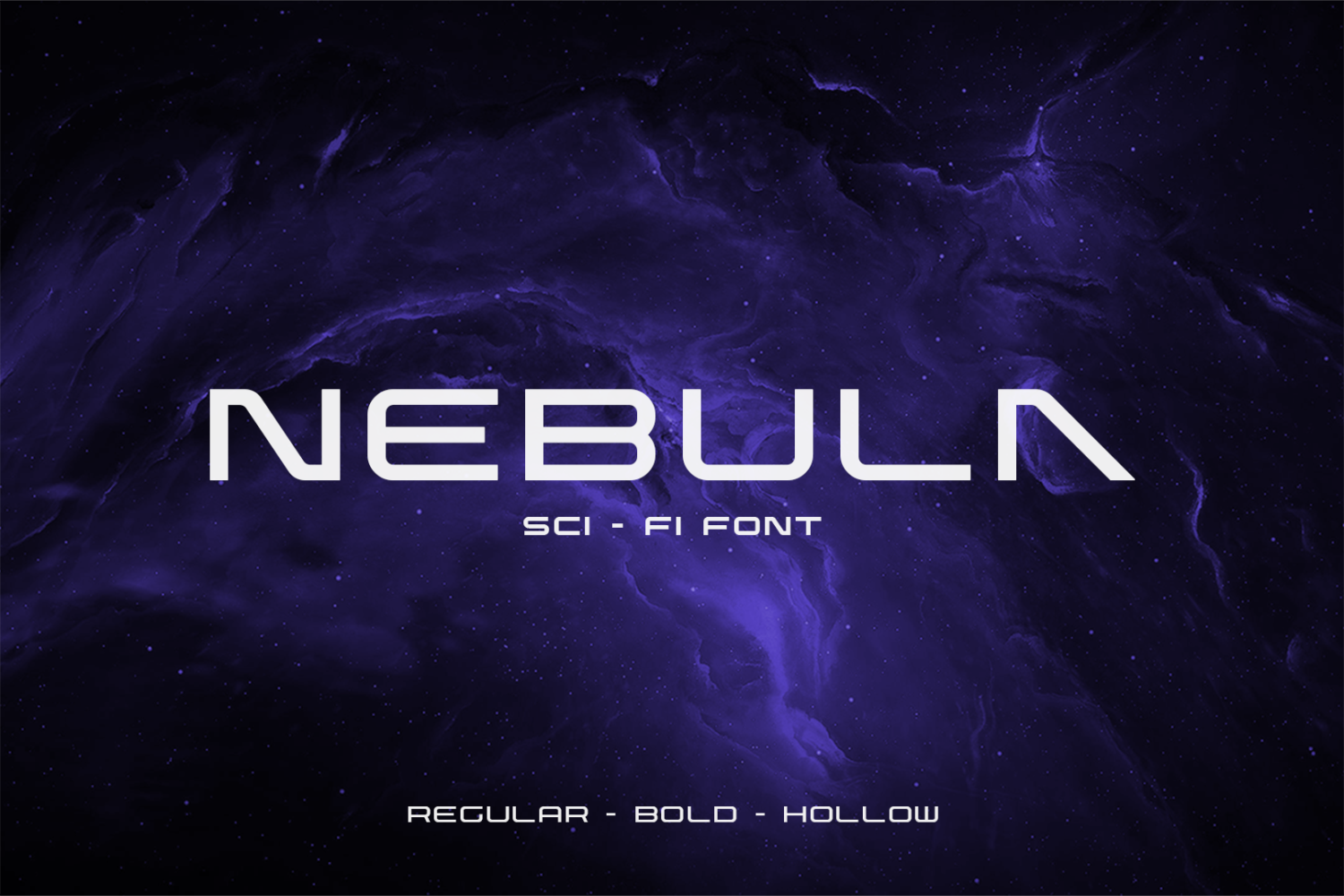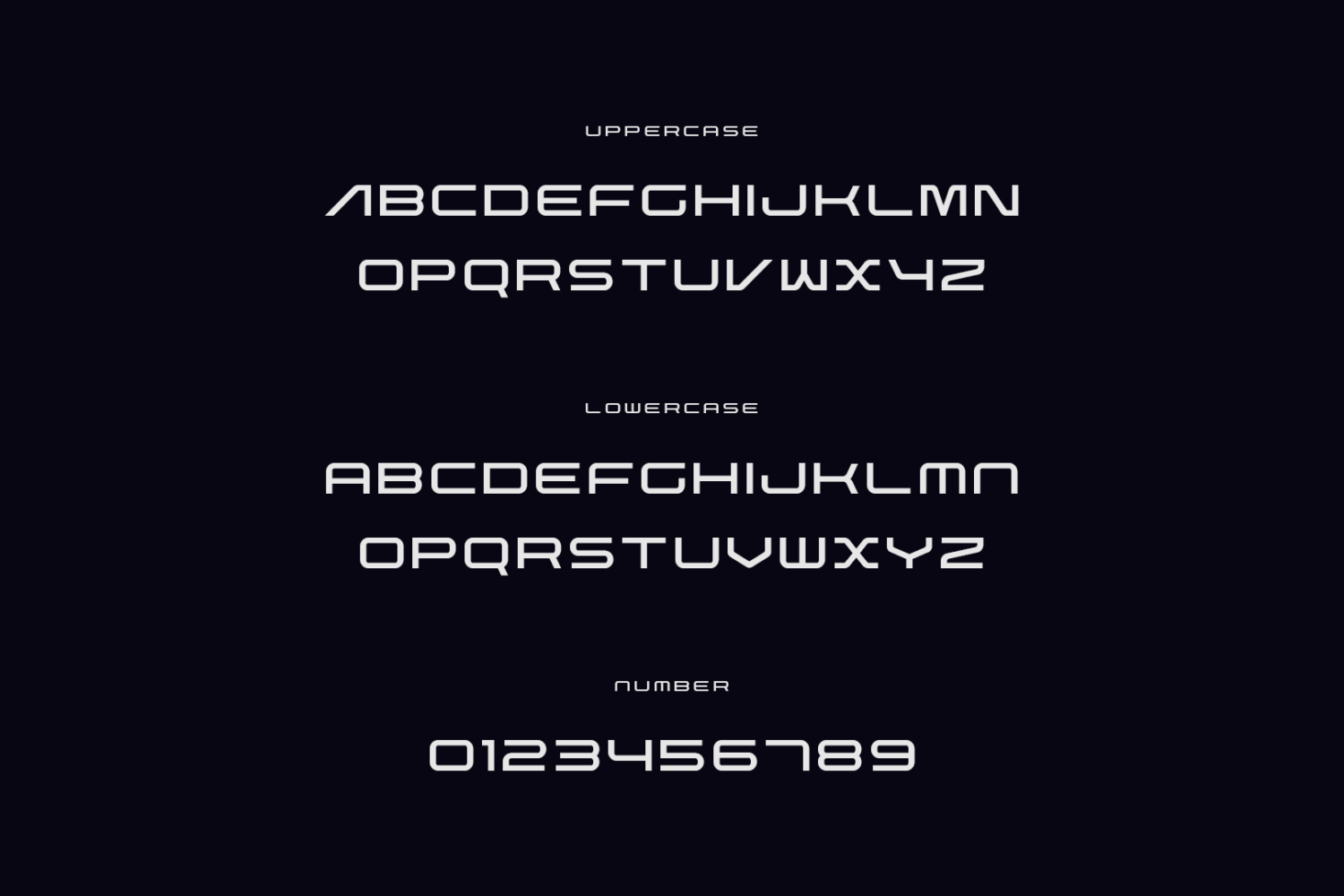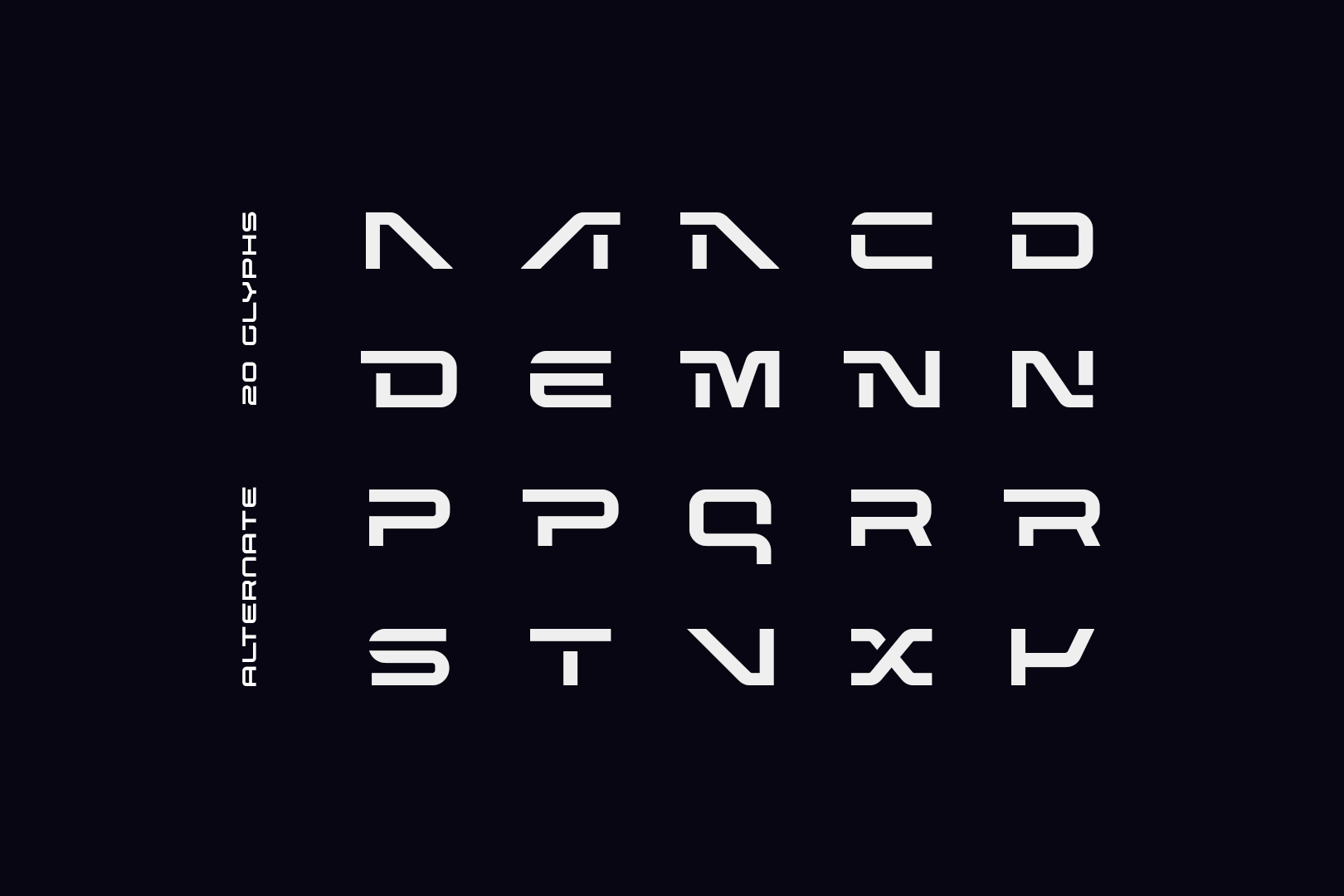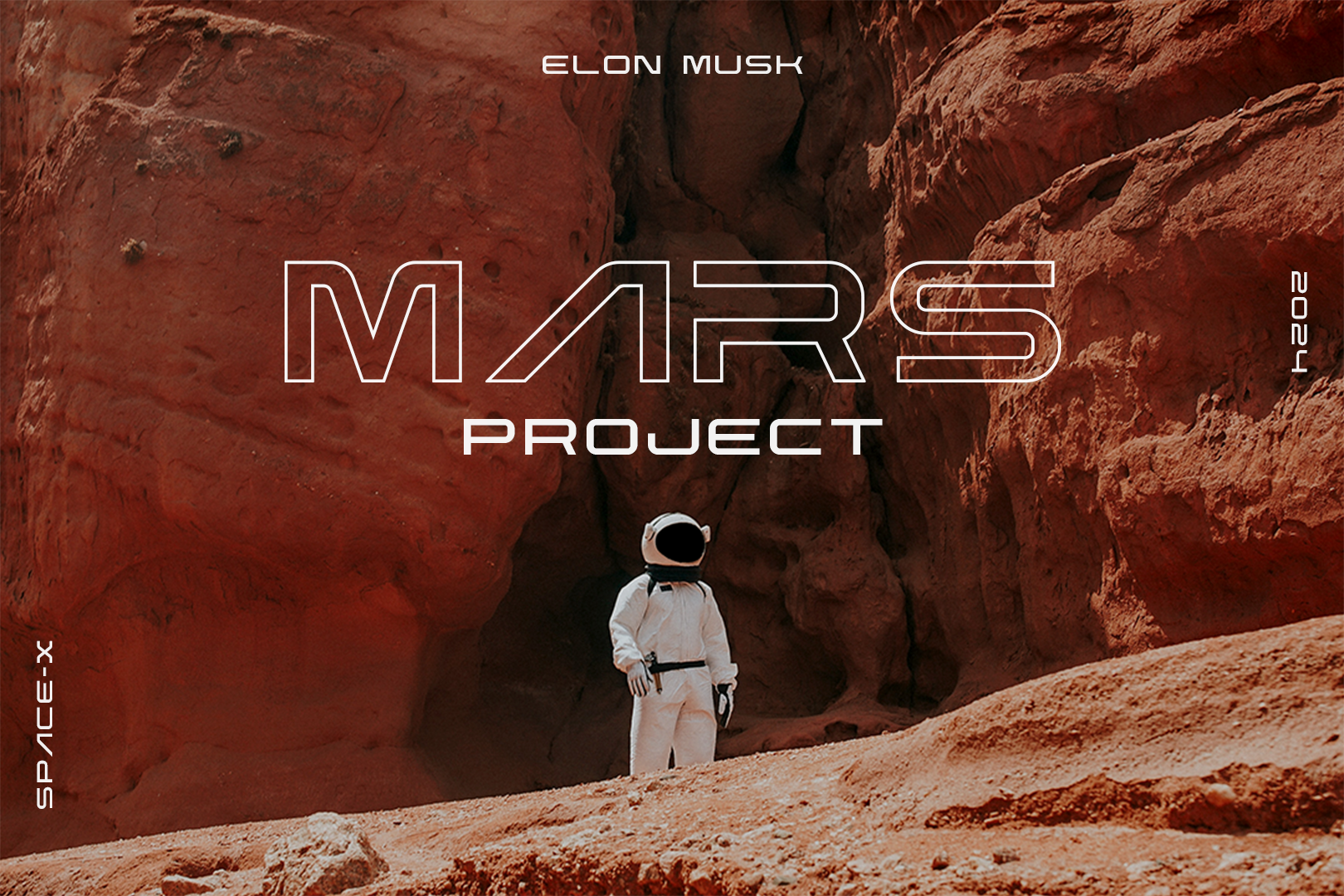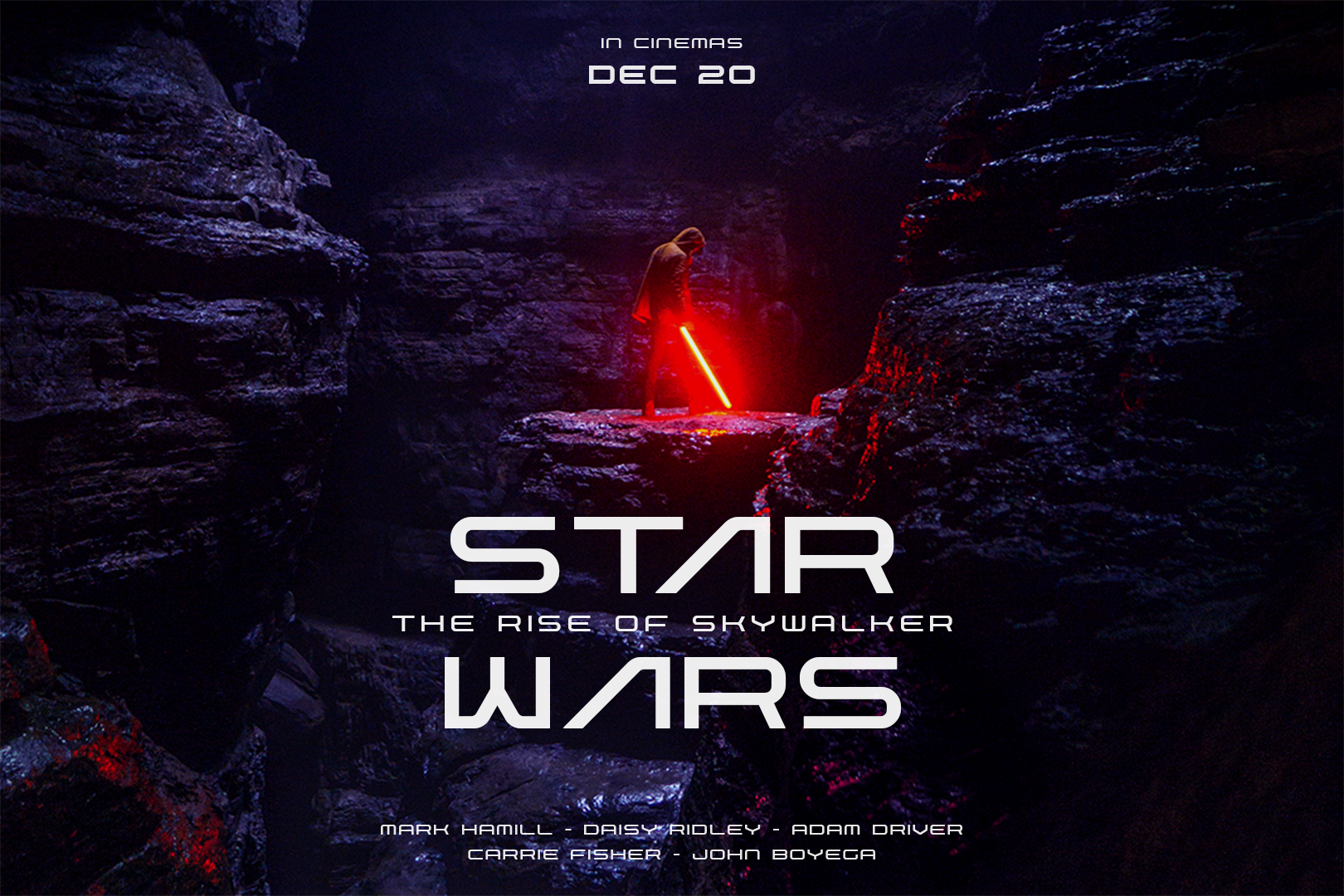
Nebula Sci-fi Free Font
Nebula Sci-fi Free Font is a futuristic font inspired by science fiction movies and books. Minimalistic is the main style for this typeface also outline style gives a more modern and elegant look. This font is suitable for various purposes such as movies, posters, logos, labels, Webfont, and any modern purposes. Many alternate character include for this font, check out the note file for a guide on how to use it. This free typeface was designed by a talented Fadiel Muhammad. If you like it don’t forget to check out the full version.